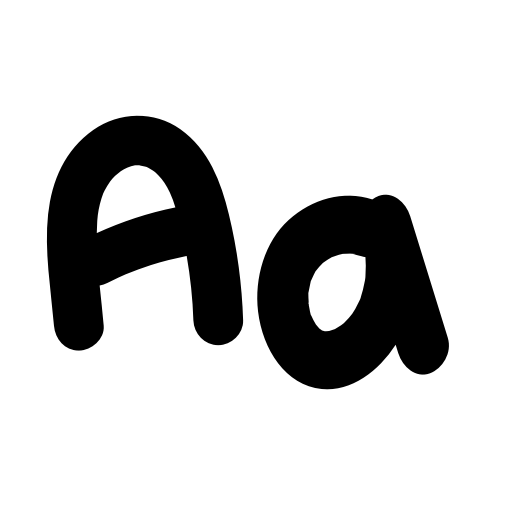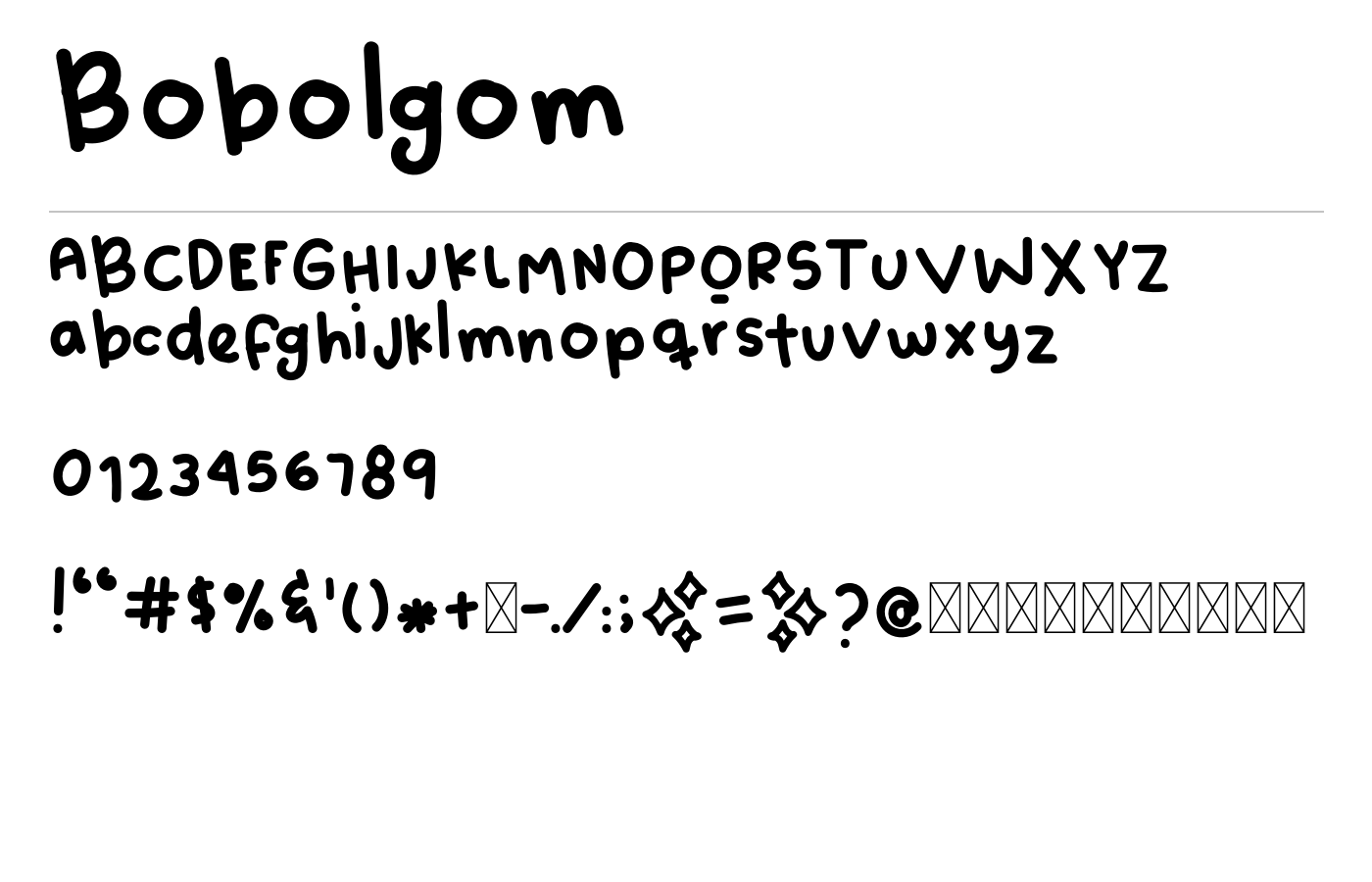
Bobolgom is a playful, handwritten sans serif font characterized by its rounded, irregular letterforms that give a friendly and informal vibe. Its medium weight and consistent stroke width make it highly legible while maintaining a casual, approachable personality, ideal for children's materials, casual branding, and fun creative projects. This font works best for headlines, logos, and any design that aims to feel warm, personal, and lighthearted.
Bobolgom Font
About Bobolgom Font